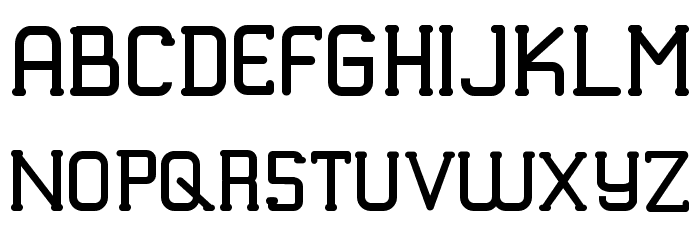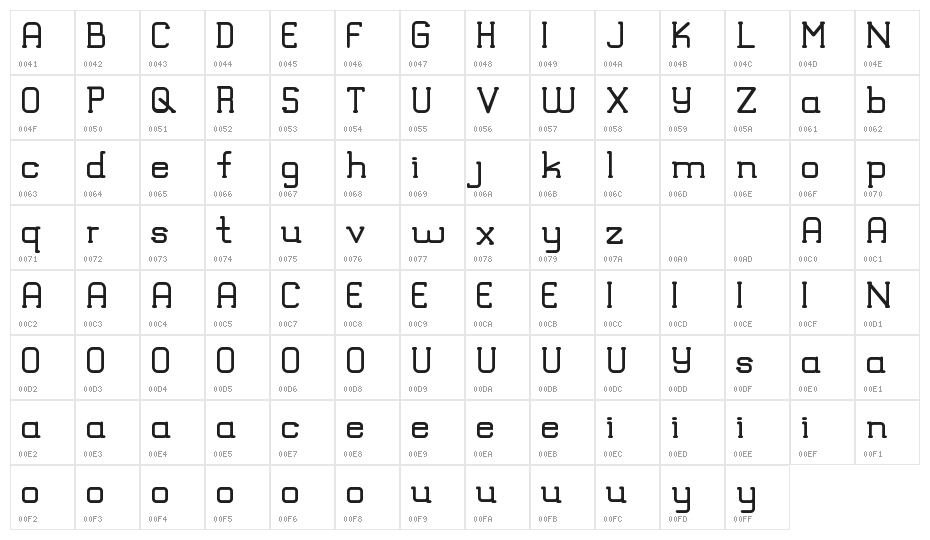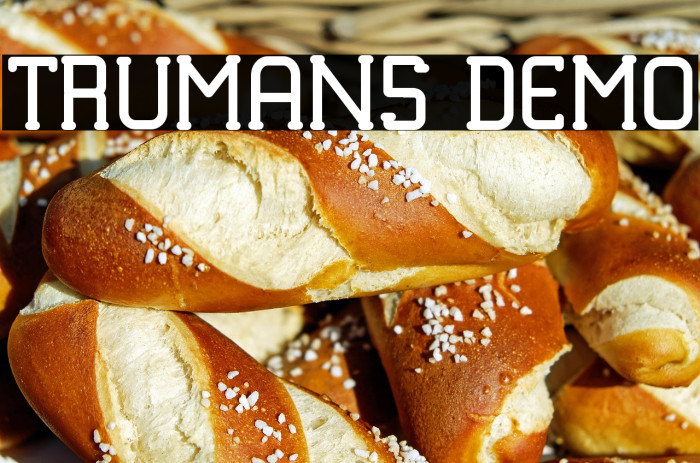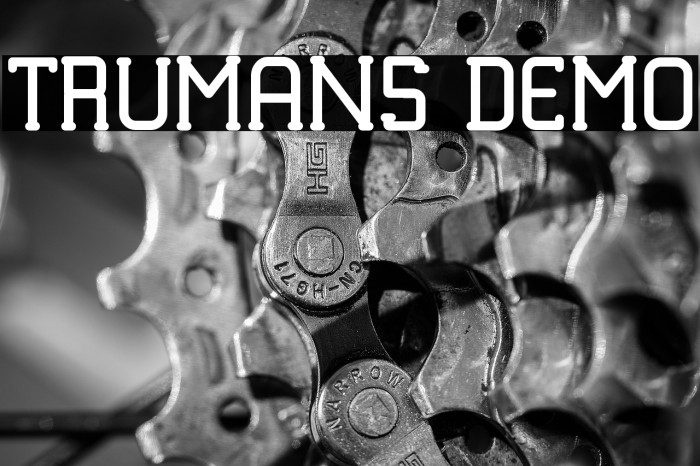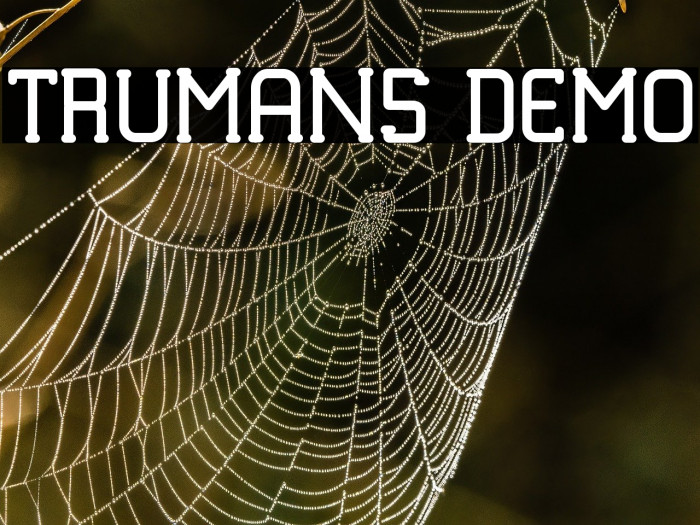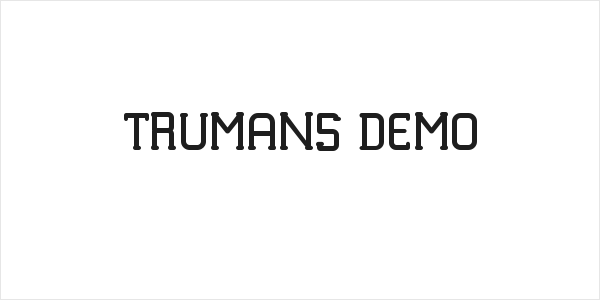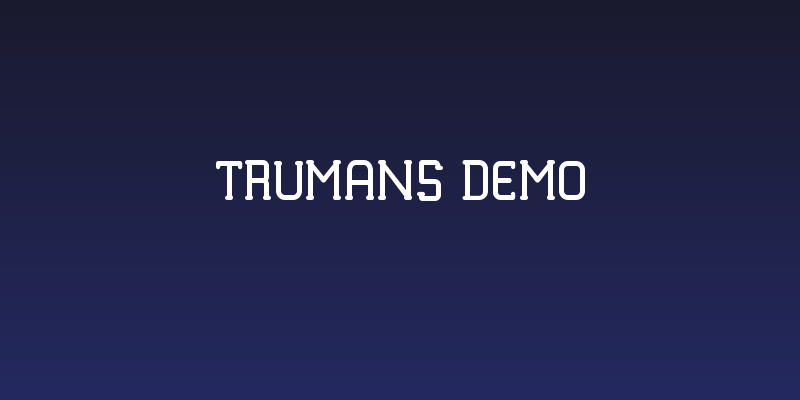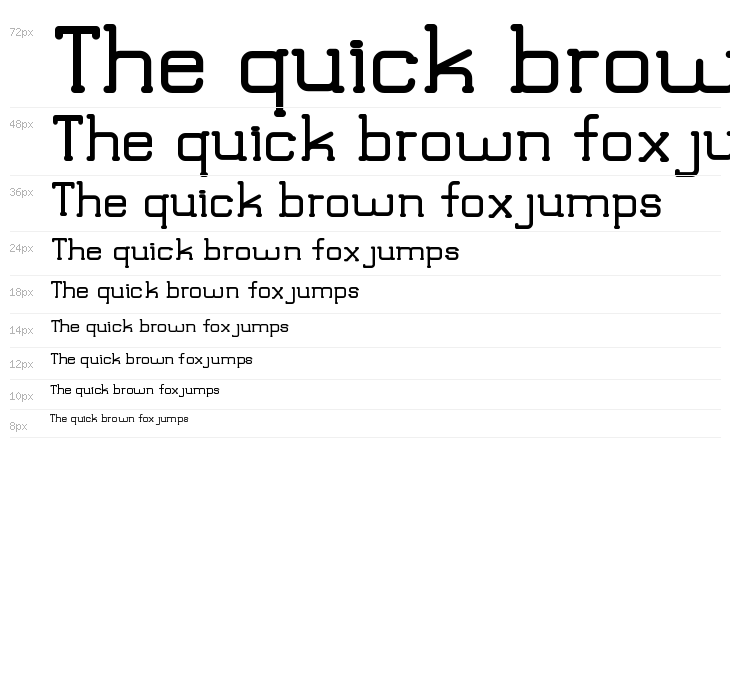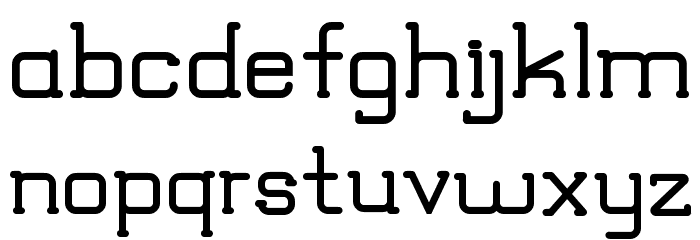
TRUMANS DEMO Font
TRUMANS DEMO Description
This font features a distinctive, modern design with a geometric and slightly rounded appearance. The characters are uniform in width, giving it a monospaced feel, yet they maintain a unique style with subtle curves and edges. The uppercase letters are bold and commanding, while the lowercase letters retain a consistent height and width, ensuring readability. The numbers and special characters follow the same design principles, making them easily distinguishable. This font's clean lines and structured form make it versatile for various design applications.